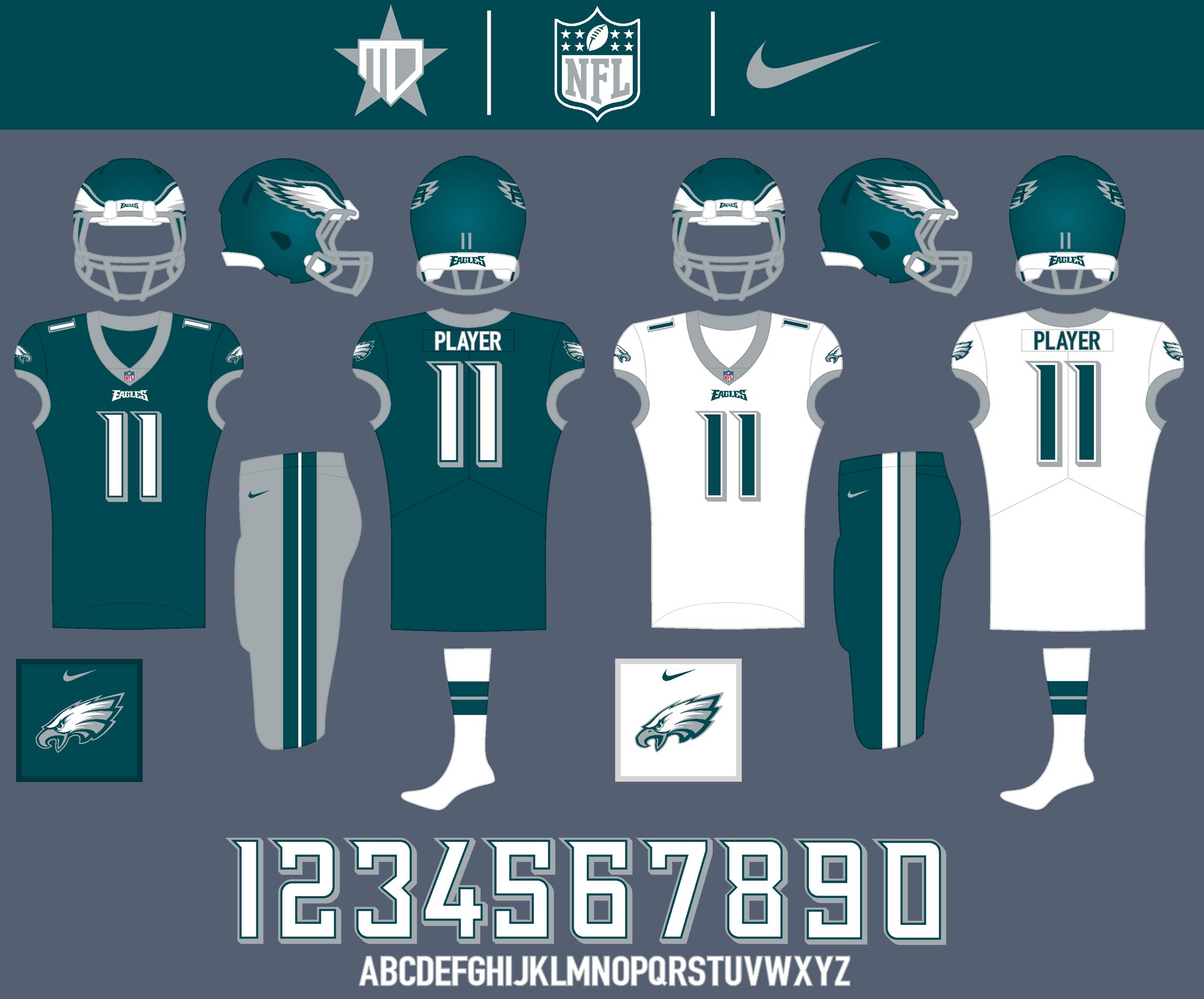
Philadelphia Eagles Font . The closest font is square slabserif 711 bold, designed by georg trump. a user asks for the name of the font used in the logo of the philadelphia eagles, a professional american football. find out the font used in the philadelphia eagles logo and get free alternatives. Fly eagles fly by iconian fonts. browse and download 23 free fonts inspired by nfl teams, including philadelphia eagles. learn about the design, evolution and symbolism of the philadelphia eagles logo, featuring a bold and italicized. Learn about the history and achievements. learn about the history and meaning of the philadelphia eagles logo and font. fly eagles fly. Find out the closest free font to the official eagles typeface and download it. download hoffman, a free font based on the philadelphia eagles logo, from famous fonts. download the nfl eagles font for free from ffonts.net, a website that offers various fonts for personal and commercial use. Find fonts like fly eagles fly, nfl san.
Fly eagles fly by iconian fonts. browse and download 23 free fonts inspired by nfl teams, including philadelphia eagles. Learn about the history and achievements. Find out the closest free font to the official eagles typeface and download it. download hoffman, a free font based on the philadelphia eagles logo, from famous fonts. The closest font is square slabserif 711 bold, designed by georg trump. download the nfl eagles font for free from ffonts.net, a website that offers various fonts for personal and commercial use. find out the font used in the philadelphia eagles logo and get free alternatives. learn about the history and meaning of the philadelphia eagles logo and font. fly eagles fly.
Philadelphia Eagles Font Find out the closest free font to the official eagles typeface and download it. Find fonts like fly eagles fly, nfl san. a user asks for the name of the font used in the logo of the philadelphia eagles, a professional american football. learn about the design, evolution and symbolism of the philadelphia eagles logo, featuring a bold and italicized. Find out the closest free font to the official eagles typeface and download it. learn about the history and meaning of the philadelphia eagles logo and font. browse and download 23 free fonts inspired by nfl teams, including philadelphia eagles. fly eagles fly. Fly eagles fly by iconian fonts. download hoffman, a free font based on the philadelphia eagles logo, from famous fonts. download the nfl eagles font for free from ffonts.net, a website that offers various fonts for personal and commercial use. Learn about the history and achievements. find out the font used in the philadelphia eagles logo and get free alternatives. The closest font is square slabserif 711 bold, designed by georg trump.
Philadelphia Eagles Font download the nfl eagles font for free from ffonts.net, a website that offers various fonts for personal and commercial use. browse and download 23 free fonts inspired by nfl teams, including philadelphia eagles. a user asks for the name of the font used in the logo of the philadelphia eagles, a professional american football. Find out the. Philadelphia Eagles Font.
Philadelphia Eagles Font Find out the closest free font to the official eagles typeface and download it. Find fonts like fly eagles fly, nfl san. learn about the history and meaning of the philadelphia eagles logo and font. find out the font used in the philadelphia eagles logo and get free alternatives. a user asks for the name of the. Philadelphia Eagles Font.
Philadelphia Eagles Font a user asks for the name of the font used in the logo of the philadelphia eagles, a professional american football. learn about the history and meaning of the philadelphia eagles logo and font. The closest font is square slabserif 711 bold, designed by georg trump. Fly eagles fly by iconian fonts. browse and download 23 free. Philadelphia Eagles Font.
Philadelphia Eagles Font fly eagles fly. a user asks for the name of the font used in the logo of the philadelphia eagles, a professional american football. learn about the design, evolution and symbolism of the philadelphia eagles logo, featuring a bold and italicized. download hoffman, a free font based on the philadelphia eagles logo, from famous fonts. . Philadelphia Eagles Font.
Philadelphia Eagles Font learn about the history and meaning of the philadelphia eagles logo and font. Find fonts like fly eagles fly, nfl san. download the nfl eagles font for free from ffonts.net, a website that offers various fonts for personal and commercial use. download hoffman, a free font based on the philadelphia eagles logo, from famous fonts. learn. Philadelphia Eagles Font.
Philadelphia Eagles Font browse and download 23 free fonts inspired by nfl teams, including philadelphia eagles. find out the font used in the philadelphia eagles logo and get free alternatives. download the nfl eagles font for free from ffonts.net, a website that offers various fonts for personal and commercial use. a user asks for the name of the font. Philadelphia Eagles Font.
Philadelphia Eagles unveil new wordmark featuring sleeker, slimmer and bolder white font The Philadelphia Eagles Font Learn about the history and achievements. find out the font used in the philadelphia eagles logo and get free alternatives. a user asks for the name of the font used in the logo of the philadelphia eagles, a professional american football. learn about the design, evolution and symbolism of the philadelphia eagles logo, featuring a bold and. Philadelphia Eagles Font.
Eagles Logo Philadelphia Eagles Font learn about the design, evolution and symbolism of the philadelphia eagles logo, featuring a bold and italicized. learn about the history and meaning of the philadelphia eagles logo and font. a user asks for the name of the font used in the logo of the philadelphia eagles, a professional american football. Find out the closest free font. Philadelphia Eagles Font.
Philadelphia Eagles Font learn about the history and meaning of the philadelphia eagles logo and font. browse and download 23 free fonts inspired by nfl teams, including philadelphia eagles. Find fonts like fly eagles fly, nfl san. find out the font used in the philadelphia eagles logo and get free alternatives. a user asks for the name of the. Philadelphia Eagles Font.